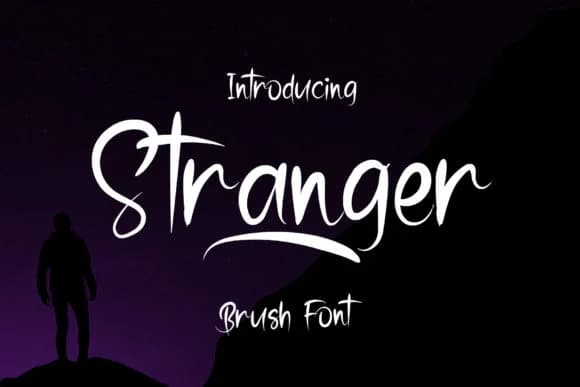
Stranger Font by Sharon (DmStudio) captures that raw, unpolished energy of hand-lettering that deliberately breaks the rules. The irregular strokes and wobbly baseline give every character genuine personality, so text feels authentically human rather than digitally polished or mechanically perfect. This handwritten script brings intentional imperfection to layouts, which is exactly what contemporary design needs when mass-produced smoothness starts feeling sterile and disconnected.
The quirky character set shines for intimate projects where warmth and personality matter: wedding invitation suites that feel personal rather than corporate, vinyl decal designs for crafters, independent bookstore signage and shelf markers, or small-batch product labels for artisanal goods. Each letter's slight variations prevent that robotic repetition you get with many digital scripts, so body text and headlines both escape looking flat or mass-produced. The font performs especially well at larger display sizes where the hand-drawn quality comes through with full impact. Beyond printed work, it translates beautifully to digital layouts where designers want to signal authenticity and human touch.
This is the script for makers and boutique brands who embrace imperfection as a design strength rather than a weakness. Brands selling handcrafted goods, small publishers, independent stationery makers, and anyone tired of looking generic will find real value here. Grab Stranger on Creative Fabrica to add this character-filled script to your collection.
Stranger Font is a script font that shines as a display or heading face. Pair it with a clean sans-serif or serif font for body text β the contrast creates a clear hierarchy while the two styles stay balanced and easy to read.